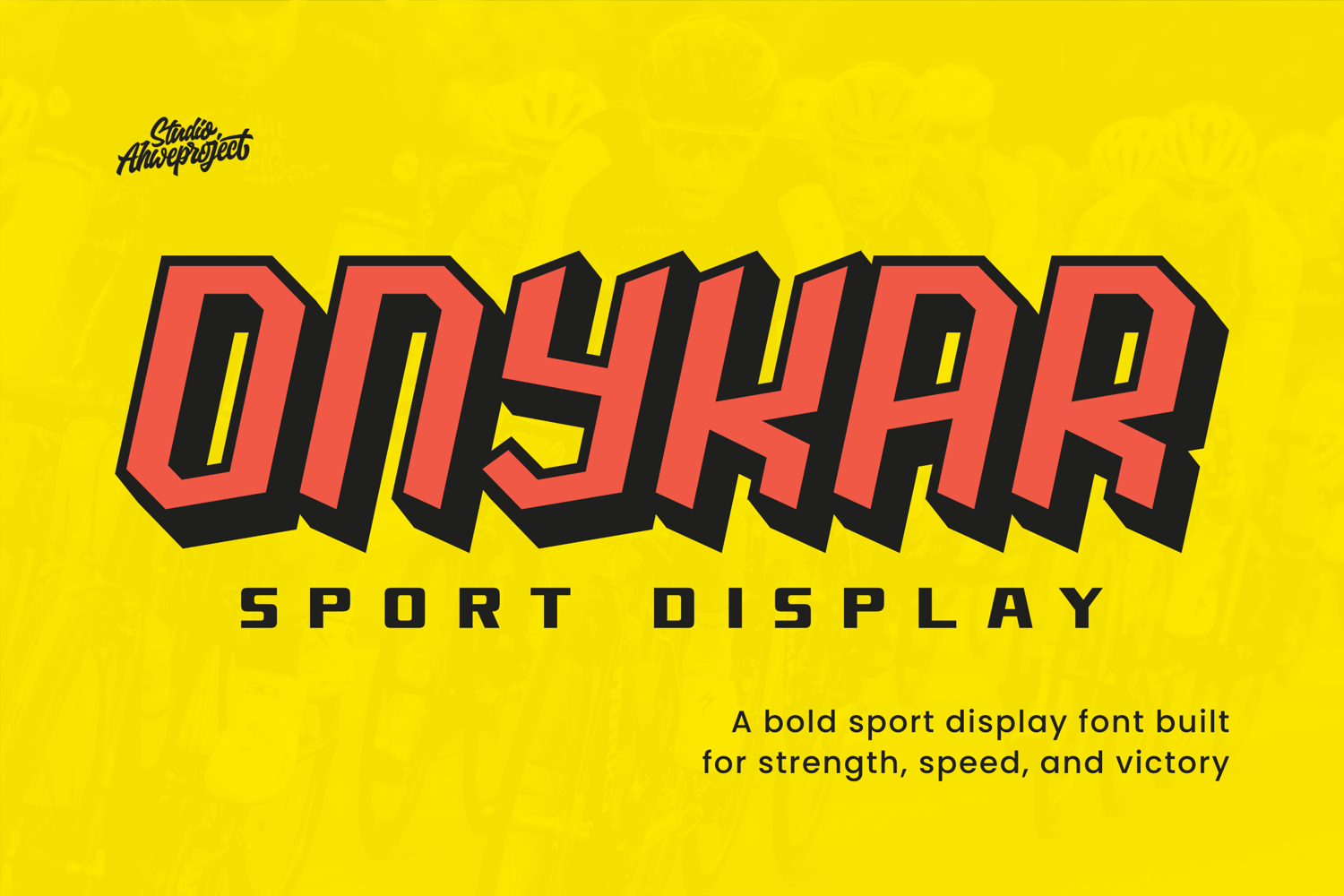
Onykar is a high-impact sport display font designed for strength, speed, and victory. Its sharp, forward-leaning shapes create instant motion, making headlines, logos, and numbers feel fast and fearless. Use Onykar for team branding, match-day posters, esports banners, racing graphics, gym merch, and any project that needs competitive energy and clear, powerful readability at large sizes.
Perfect for
- Team logos, jerseys & numbers
- Esports/gaming covers & thumbnails
- Racing, motocross, cycling & extreme sports graphics
- Event posters, badges, stickers & apparel
- Social media promos and YouTube/stream overlays
- Bold, angular letterforms with dynamic momentum
- Built for large sizes: crisp, legible, and attention-grabbing
- Clean spacing and sturdy proportions for print & digital
- Works great alone or paired with a modern sans
- Full set of Upper & Lowercase Character
- Number & Punctuation
- Multilingual Language
- PUA encoded
- Opentype Features